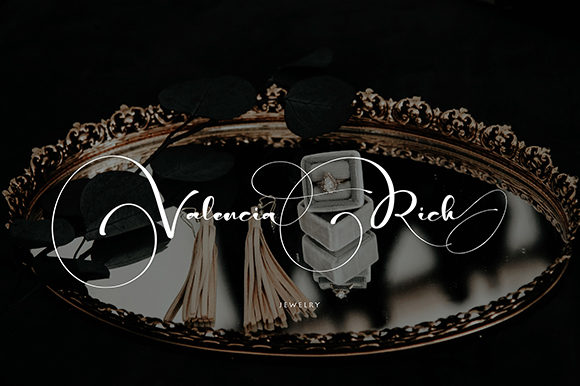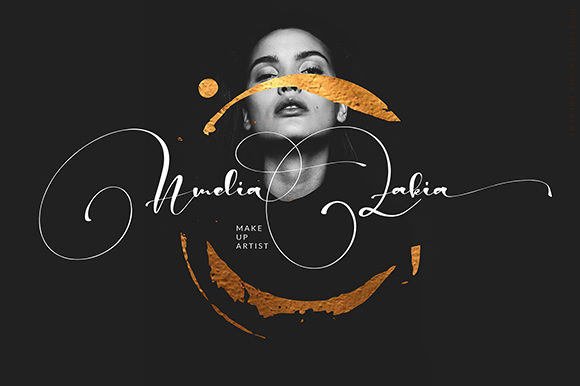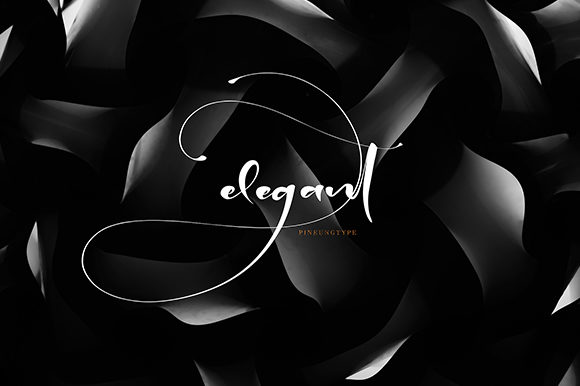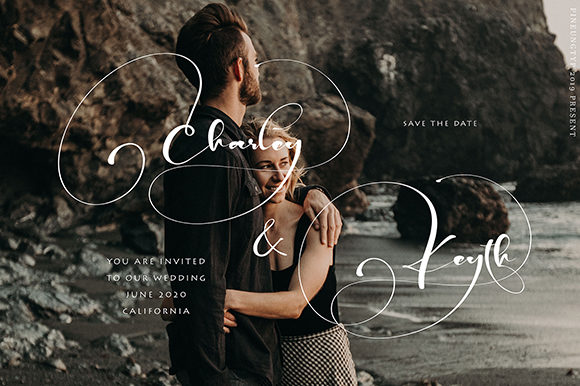
Hanty Kagote Font
About Hanty Kagote Font
Hanty Kagote is a beautiful and fun handwritten font with an authentic twist. Fall in love with its unique charm, and get inspired by its unique charm.